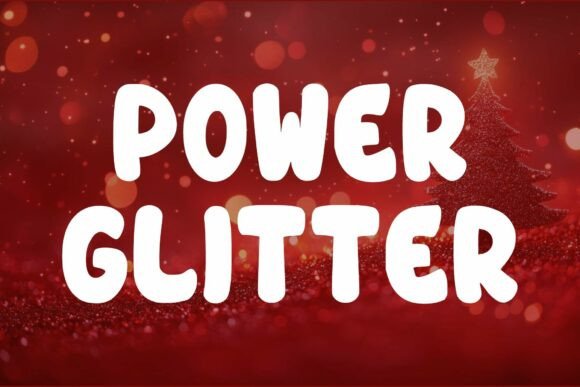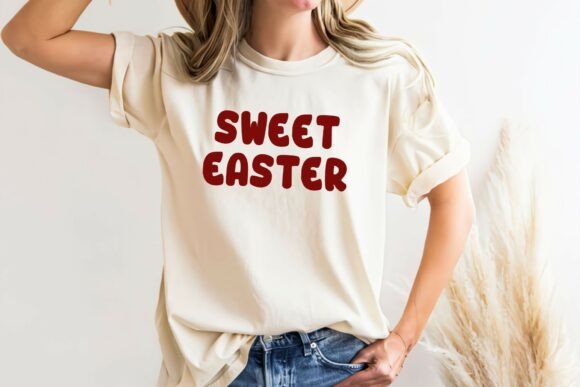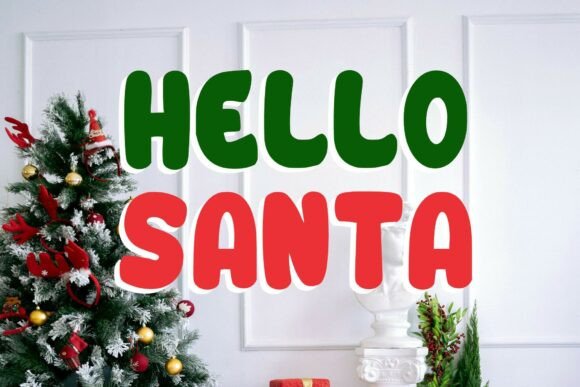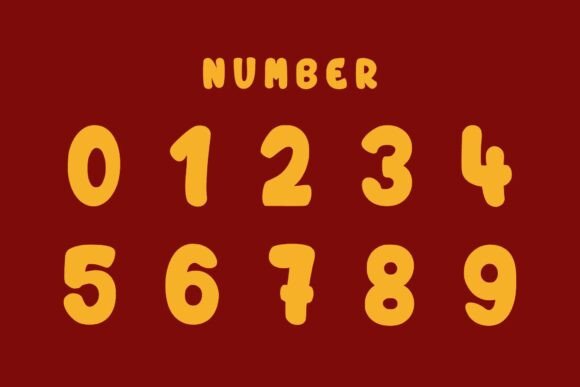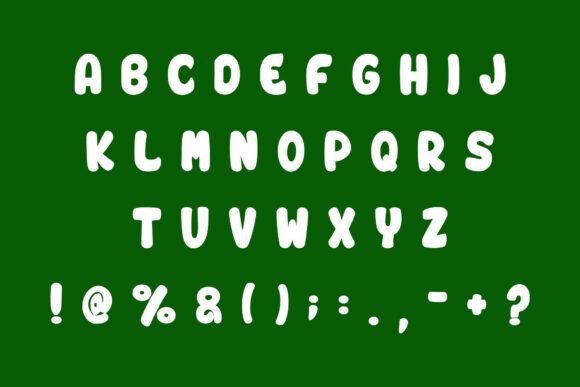
Introducing Groovychristmas Regular Font: The Ultimate Holiday Display Font
Are you looking for a font that embodies the fun and festive spirit of the holiday season? Look no further than Groovychristmas Regular Font, a playful display font that captures the heart of holiday cheer with its rounded, bubbly characters and bold presence. Designed to evoke the nostalgic charm of retro Christmas decor, this font blends a sense of warmth with a dash of whimsy, making it perfect for a variety of holiday projects.
A Festive Font with a Retro Twist
Groovychristmas typeface is a fun and festive font that is sure to bring a smile to anyone’s face. Its soft, chunky letterforms are reminiscent of classic Christmas decorations, such as vintage ornaments and retro-style holiday posters. The font’s rounded edges and bold lines give it a friendly and approachable feel, making it perfect for greeting cards, party invites, posters, stickers, and holiday merchandise.
Easy to Read and Bursting with Personality
One of the best things about Groovychristmas Regular Font is its readability. Even at smaller sizes, the font remains clear and easy to read, making it perfect for digital content and printed materials. The font’s playful personality shines through in its unique character design, making it sure to add a touch of holiday magic to any project.
PUA Encoding for Easy Access to Special Characters
Endless Possibilities for Holiday Designs
With Groovychristmas Regular Font, the possibilities for holiday designs are endless. Use it to create:
- Festive greeting cards and invitations
- Eye-catching holiday posters and flyers
- Fun and playful stickers and decals
- Unique and personalized holiday gifts and merchandise
- Beautiful and festive digital content, such as social media graphics and blog posts
Why Groovychristmas Regular Font is a Great Asset to Your Font Library
Groovychristmas Regular Font is more than just a holiday font – it’s a versatile and fun design tool that can enhance any creation. Its unique character design and playful personality make it perfect for a wide range of design projects, from digital content to printed materials. And with its easy-to-read design and PUA encoding, it’s easy to use and customize.
Get Ready to Add Some Groovy Christmas Cheer to Your Designs